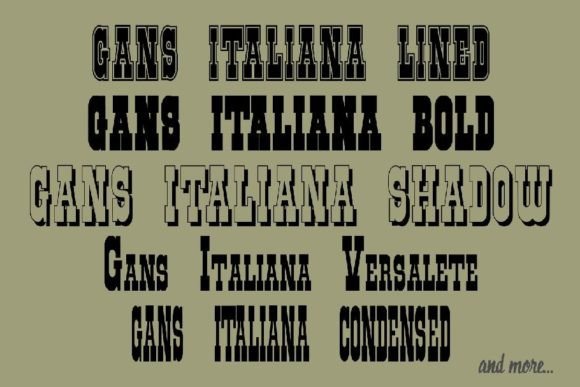
Gans Italiana Font: A Comprehensive Family of Wood-Type Inspired Typefaces
For designers and crafters, the right font can make all the difference in creating a visually appealing and cohesive design. One font that has gained popularity in recent years is the Gans Italiana font, a comprehensive family of wood-type inspired typefaces based on the same font by the extinct Spanish Gans Fundicion. In this article, we’ll take a closer look at the Gans Italiana font, its history, features, and uses.
A Brief History of Gans Italiana Font
The Gans Italiana font is inspired by the original Gans font created by the Spanish foundry, Gans Fundicion. Although the foundry is now extinct, the legacy of their fonts lives on through digital interpretations like Gans Italiana. This font family is a modern take on the classic wood-type fonts that were popular in the 19th and early 20th centuries.
Features of Gans Italiana Font
The Gans Italiana font family is a comprehensive collection of typefaces that includes multiple weights, styles, and characters. Some of its notable features include:
- Wood-type inspired design: The Gans Italiana font has a distinctive wood-type look, with bold lines, rugged texture, and a vintage feel.
- Multiple weights and styles: The font family includes a range of weights, from light to bold, as well as italic and condensed styles.
- Large character set: The font includes a large character set, with support for multiple languages and special characters.
- High-quality rendering: The font is designed to render well at various sizes, from small captions to large headlines.
Uses of Gans Italiana Font
The Gans Italiana font is a versatile typeface that can be used in a variety of design projects, including:
- Headlines and titles: The bold and condensed styles of Gans Italiana make it perfect for headlines and titles.
- Branding and packaging: The font’s vintage feel and rugged texture make it suitable for branding and packaging designs that require a unique and eye-catching look.
- Signage and display: The font’s wood-type inspired design makes it a great choice for signage and display projects, such as posters, flyers, and billboards.
- Crafting and DIY projects: The font’s rustic feel and charm make it a popular choice for crafting and DIY projects, such as handmade cards, invitations, and scrapbooking.
Tips for Using Gans Italiana Font
To get the most out of the Gans Italiana font, here are some tips to keep in mind:
- Pair with complementary fonts: Gans Italiana works well with other fonts that have a similar vintage or rustic feel.
- Experiment with colors and textures: The font’s wood-type inspired design looks great with earthy colors and textures.
- Use for display purposes: Gans Italiana is best used for display purposes, such as headlines and titles, rather than body text.
In conclusion, the Gans Italiana font is a comprehensive family of wood-type inspired typefaces that offers a unique and versatile design solution for designers and crafters. With its rich history, distinctive features, and wide range of uses, Gans Italiana is a great choice for anyone looking to add a touch of vintage charm to their design projects.